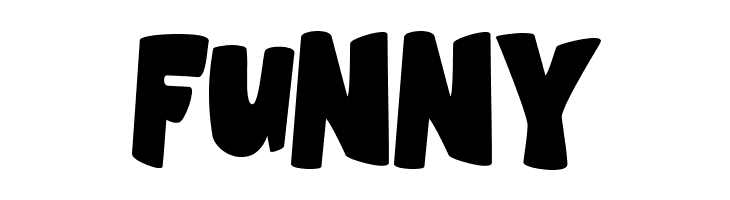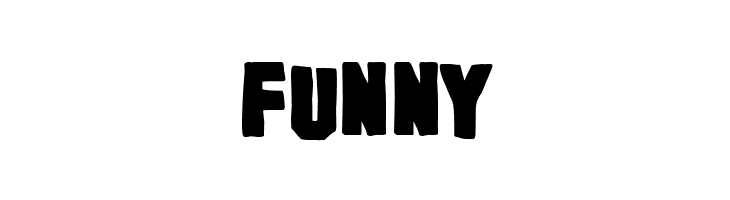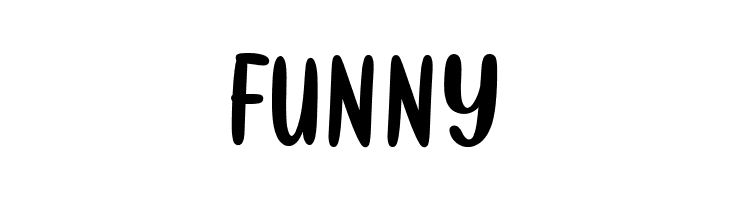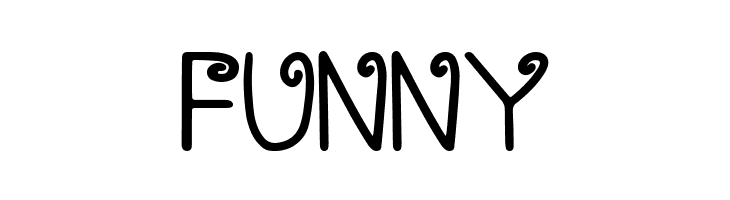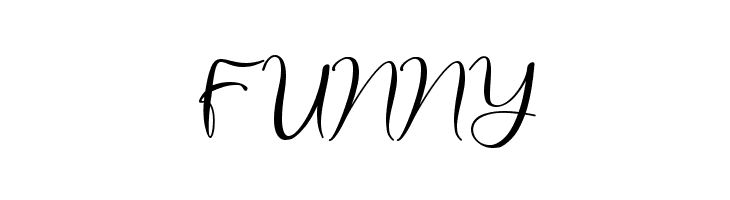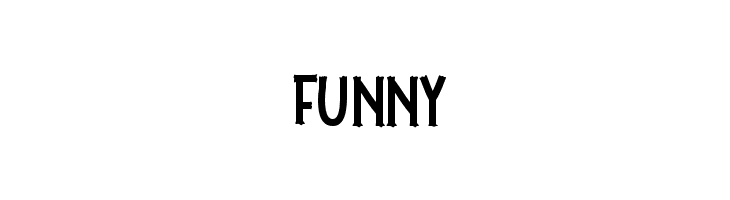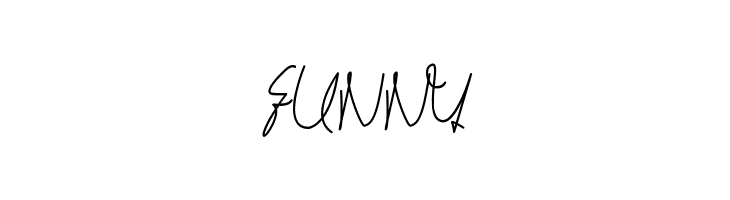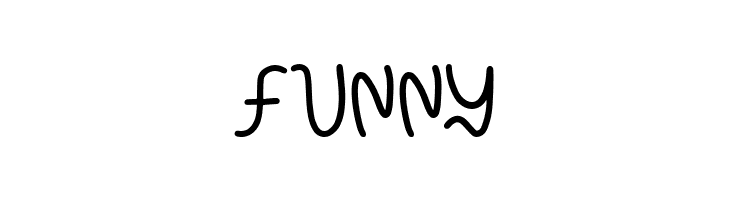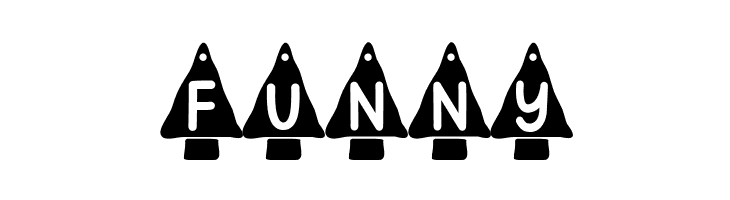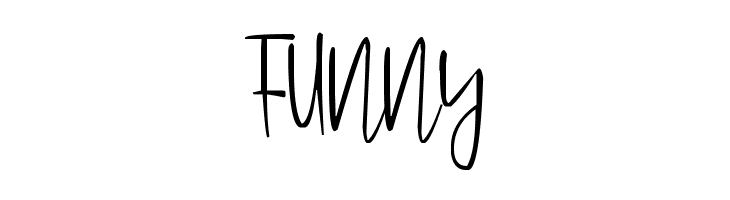
An elegant, flowing script font with a modern, handwritten style.
Bold, brush-style script font with lively, hand-drawn strokes.
A playful, spooky font with jagged, uneven characters perfect for Halloween themes.
A bold, brush-style font with a playful, spooky vibe.
A playful and whimsical script font with smooth, interconnected letters.
A playful, handwritten cursive font with smooth, connected strokes.
A lively handwritten font with fluid, energetic strokes and a playful style.
A bold, angular gothic-style font with sharp edges and dramatic flair.
A festive, tree-shaped font perfect for holiday designs.
A bold, blocky font with a playful, rebellious edge and hand-cut appearance.
Bold, decorative script with festive swashes and high contrast.
A modern, elegant script font with flowing, cursive characters.
A bold, geometric font with sharp angles and high contrast.
A playful, bold font with rounded edges and a hand-drawn feel.
A playful, rounded font with bold, smooth curves and consistent spacing.
A bold, brush-style font with a playful and energetic look.
A playful, rounded font with a hand-drawn, whimsical style.
A bold, flowing script font with smooth, rounded edges and a slight slant.
A playful, cursive font with artistic, handwritten characteristics.
A playful and elegant cursive font with dynamic stroke variations.
A bold, playful font with wavy, rounded characters.
A bold, italic, and playful font with a handwritten feel.
A playful, handwritten-style font with smooth, flowing curves and a casual feel.
A casual, elegant handwritten font with flowing cursive letterforms.
A playful, handwritten font with fluid strokes and dynamic contrast.
A bold and elegant font with dramatic strokes and subtle curves.
A bold, playful font with rounded, hand-drawn characters.
A playful, whimsical font with rounded and curly elements, perfect for creative projects.
A playful handwritten font with a casual and friendly style.
A playful and whimsical script font with a hand-drawn aesthetic.
An elegant, flowing script font with smooth, cursive strokes and graceful curves.
A bold, flowing script font with a playful and energetic style.
A playful, handwritten font with fluid, cursive strokes and dynamic character.
An elegant and flowing script font with graceful, cursive letterforms.